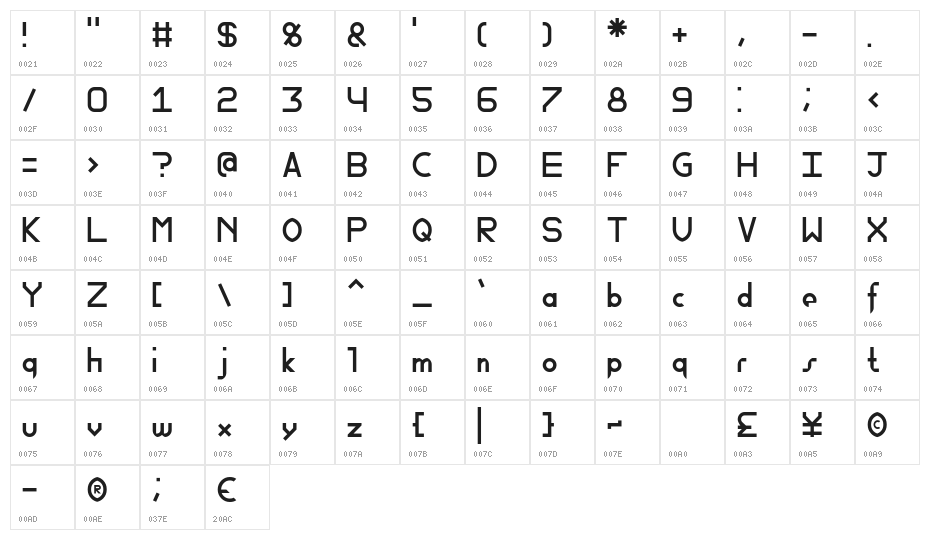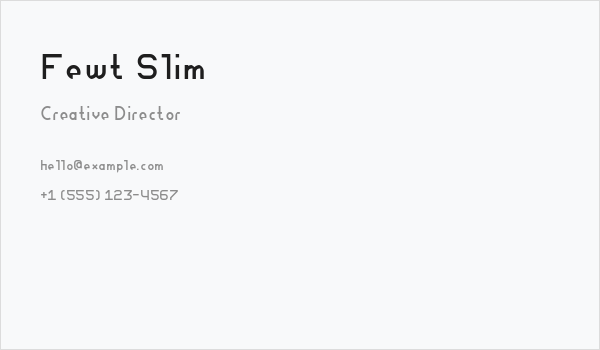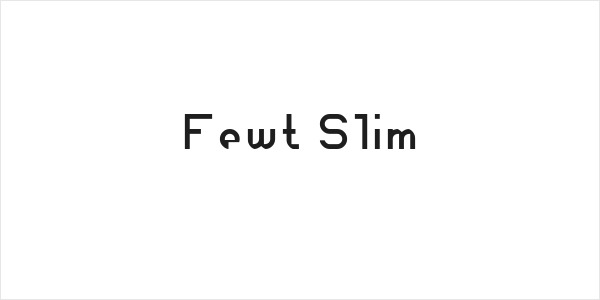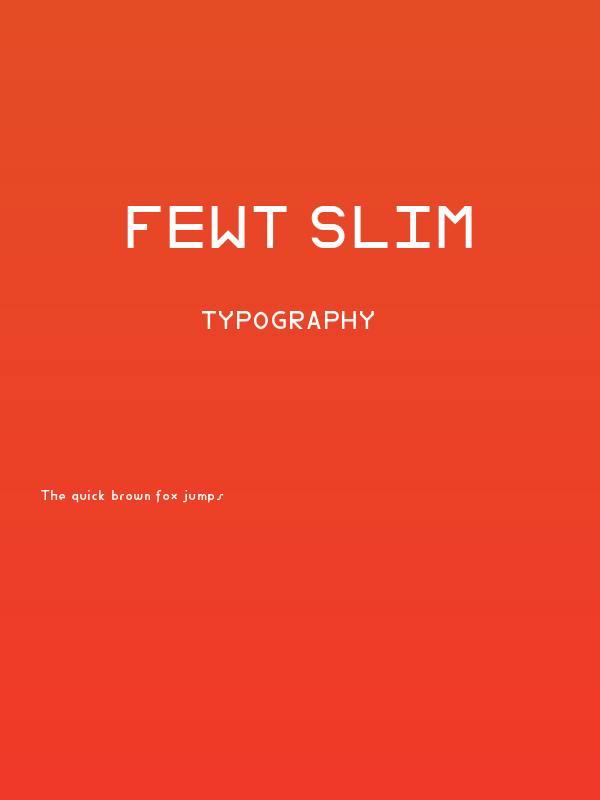
Fewt Slim Font
Fewt Slim Description
This font features a clean and modern design with a geometric structure. The characters are uniform in width, creating a balanced and harmonious appearance. The uppercase letters are bold and assertive, while the lowercase letters maintain a consistent style with slightly rounded edges, adding a touch of softness. The numerals are clear and easy to read, making them suitable for various applications. Special characters are well-defined, ensuring versatility in design projects. The overall aesthetic is minimalist, making it ideal for contemporary branding and digital interfaces.
| Proposed Projects | Ideal for branding, digital interfaces, signage, and editorial design. |